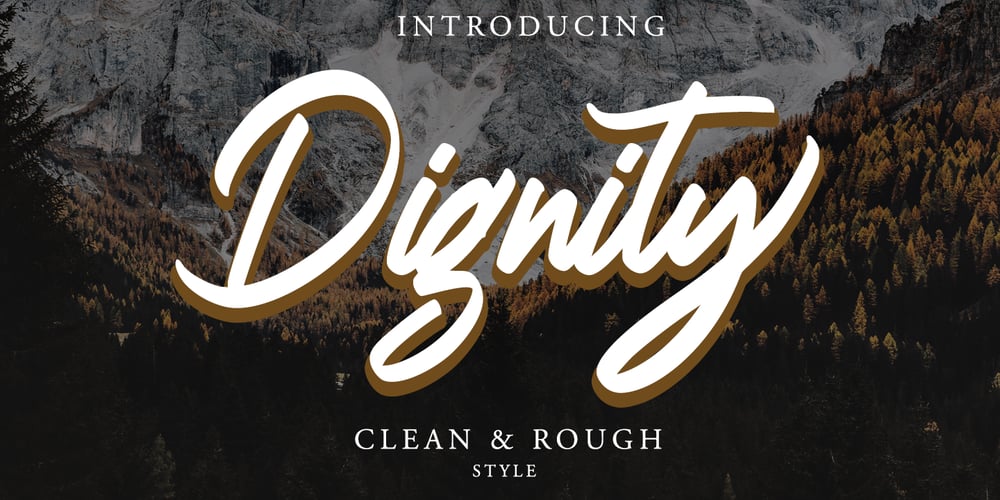
Dignity Font Family was designed by Asep Rendi and published by Arendxstudio. Dignity contains 2 styles and family package options. Dignity contains a unique and neat hand written style that makes it fit to place it for your design project. Dignity is a font with distinctive handwritten characters perfect for branding projects, logos, wedding designs, media posts, advertisements, product packaging, product designs, labels, photography, watermarks, invitations, stationery, and any project who need handwritten dishes. Features : • Character Set A-Z • Numerals & Punctuations (OpenType Standard) • Accents (Multilingual characters) • Ligature There it is! I really hope you enjoy it – comments & likes are always welcome and accepted. More importantly, don’t hesitate to send a message if you have a problem or question.Now just read this, go there and make it happen 🙂